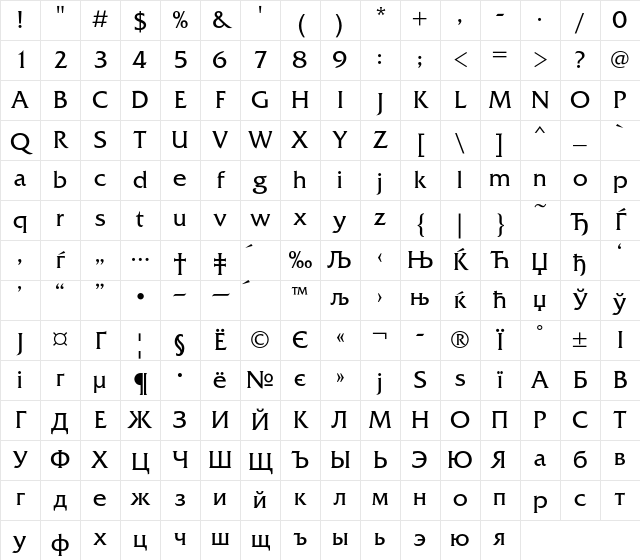
FrizQuadrataC Regular Free Font
FrizQuadrataC Regular
Design Context for FrizQuadrataC
FrizQuadrataC is a composed and adaptable typeface that performs quietly and consistently across a wide range of design contexts.